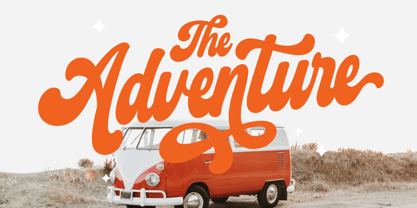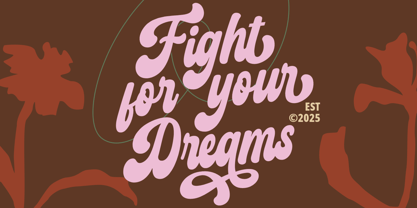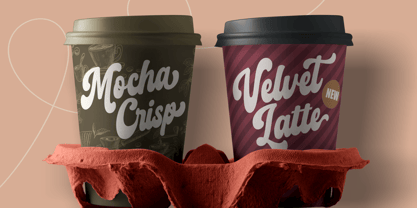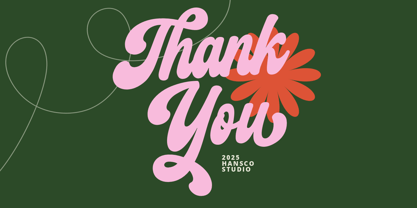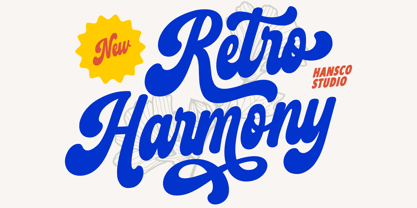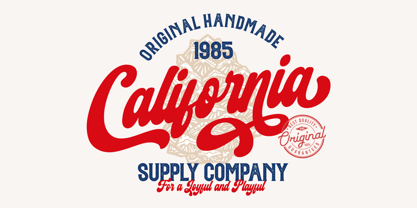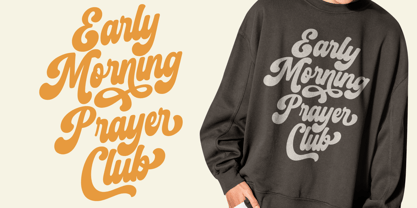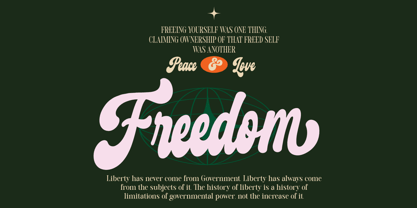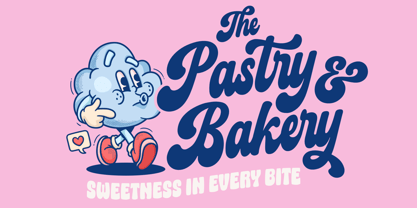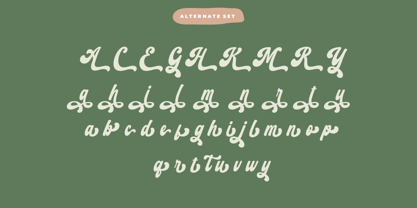
Retro Harmony
by HansCo
The Retro Harmony Font Family was designed by Burhan Afif and published by HansCo. Retro Harmony contains 1 styles. More about this family
Retro Harmony Font is a modern, clean and cute retro font style. You will also get extra alternate character fonts in this font pack to make your design projects perfect. Use this display font to add that special retro touch to any design idea you can think of!. Equipped with all complete characters ranging from uppercase letters, lowercase letters, numbers, punctuation marks and multi-lingual support, this font is ready to be used in any project. Very suitable for Logotype, Stickers, Packaging Design, Cricut Project, Headlines, Brand identity, Posters, Magazines, Books, YouTube, Instagram, Websites, or any of your creative design projects.